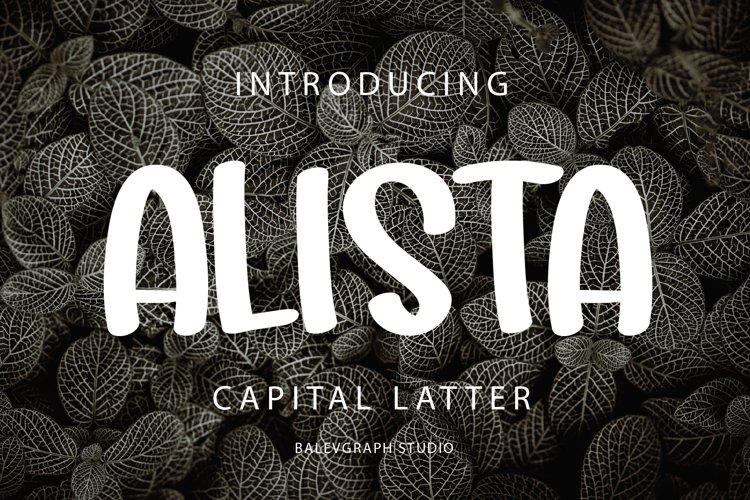
ALISTA is beautiful uppercase font.
ALISTA would perfect for photography, watermark, social media posts, advertisements, logos & branding, invitation, product designs, label, stationery, wedding designs, product packaging, special events or anything that need handwriting taste.
- Ton of glyphs (include Uppercase)